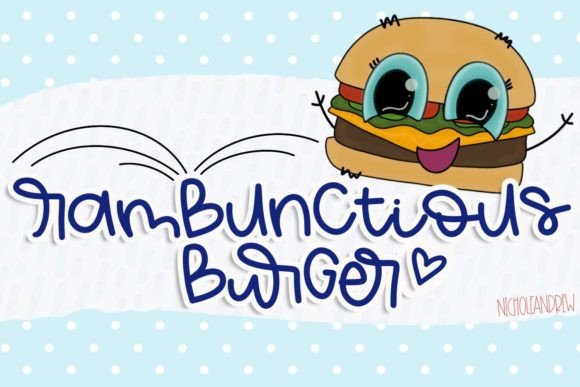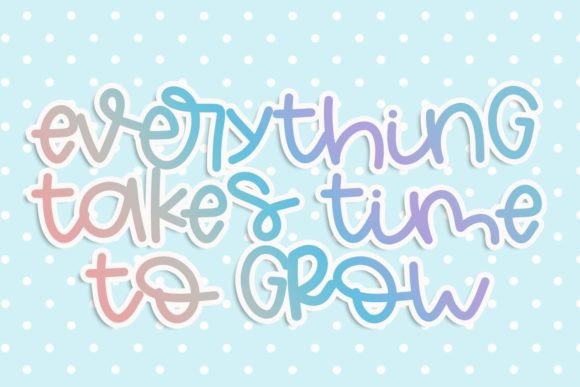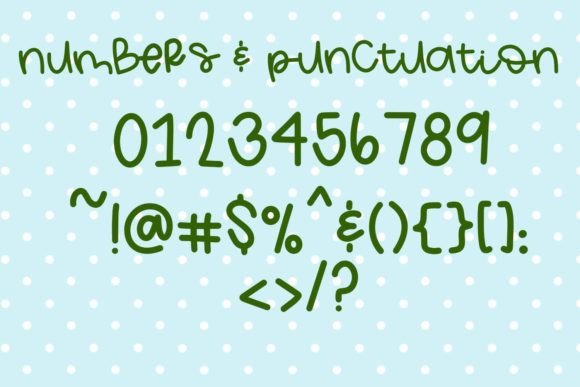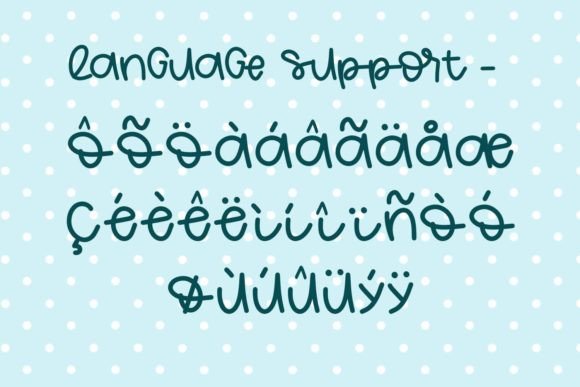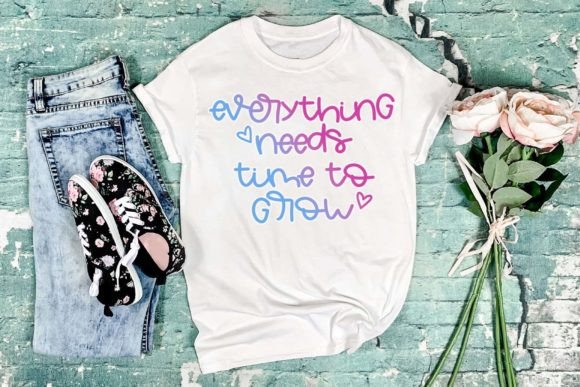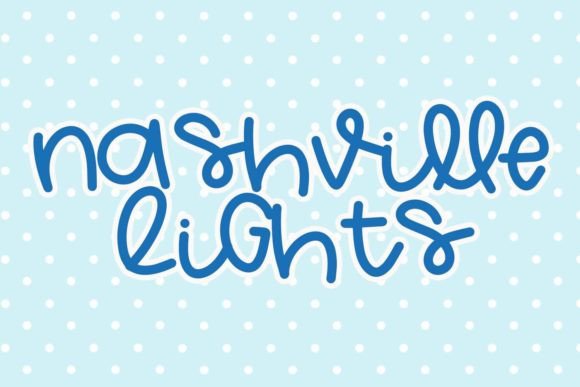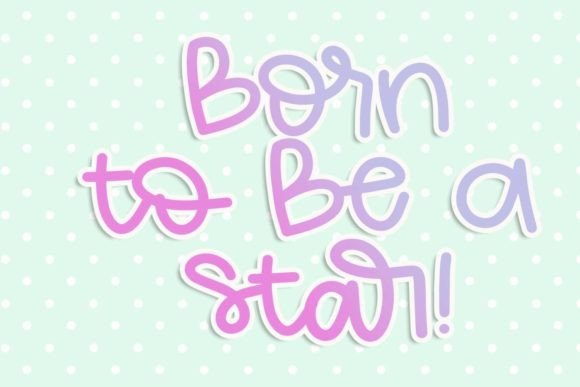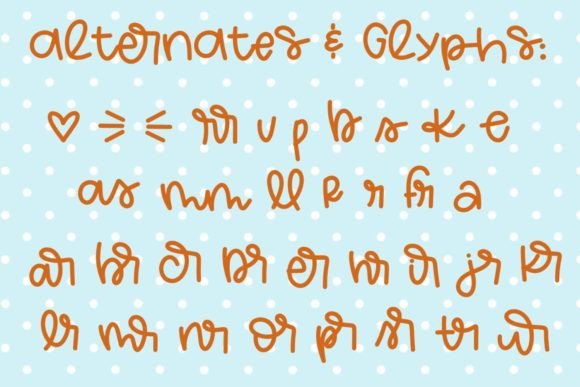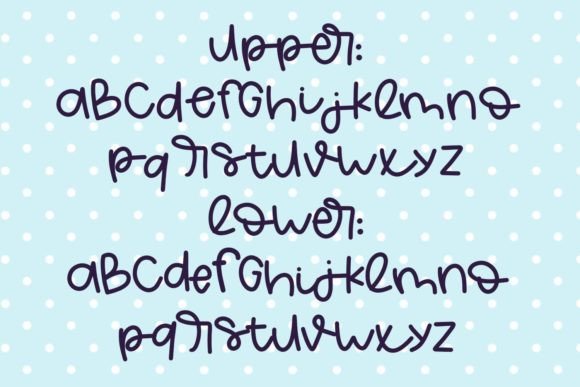
Rambunctious Burger Font
About Rambunctious Burger Font
“Rambunctious Burger” is an entertaining and adorable hand-written font that adds a playful touch to your designs. This font showcases a delightful mix of uppercase and lowercase letters, contributing to its unique and whimsical appearance. Perfect for a range of creative projects, “Rambunctious Burger” brings a fun and friendly vibe to your text.
The combination of uppercase and lowercase letters allows for creative and dynamic typography, giving your designs a distinctive and lively character. Whether you’re working on invitations, greeting cards, posters, or any project that requires a touch of charm, “Rambunctious Burger” is designed to capture attention and evoke a sense of joy.
The hand-written style of this font adds a personal and organic feel, making it suitable for a variety of themes and applications. Its versatility makes it a valuable asset in creating visually engaging and memorable designs.
Incorporate “Rambunctious Burger” into your next project to infuse a dose of playfulness and creativity. This font is an adorable addition to your font collection, offering a fun and delightful option for expressing your design ideas.
In summary, “Rambunctious Burger” is a fun and adorable hand-written font with a mix of uppercase and lowercase letters, ideal for bringing a unique and playful look to your projects. Its charming design makes it well-suited for a variety of creative applications, adding a touch of whimsy to your text.